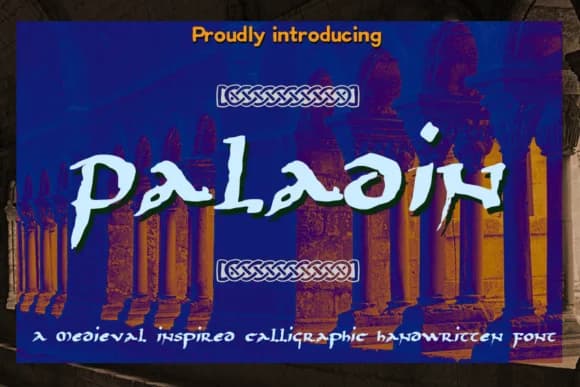
About Paladin Font
Paladin Font by Markus Schroppel is an elegant calligraphic script inspired by medieval manuscripts and the historic Arles countryside of southern France. This ornate typeface captures the refined character of European handwriting traditions, bringing authentic period styling to modern design work. Paladin excels at creating wedding invitation suites with timeless sophistication, designing fantasy book covers with narrative depth, crafting artisanal product labels that convey heritage and craftsmanship, and producing decorative certificate designs that demand visual distinction. The flowing letterforms evoke the discipline and beauty of historical penmanship.
Beyond its atmospheric aesthetic appeal, Paladin's consistent letterforms ensure solid readability across different applications while maintaining that carefully crafted, hand-rendered quality throughout. The script performs beautifully at larger sizes for headlines and focal points, making it particularly valuable for design projects where you want viewers to slow down and genuinely appreciate the typography. Vintage-inspired branding, premium packaging for small-batch goods, and manuscript-style collateral all benefit from Paladin's authentic character and visual presence. Whether you're building a comprehensive wedding brand identity or creating ephemera with historical roots, this font brings the refined discipline of medieval calligraphy to contemporary creative work with distinctive personality.
Paladin Font is a script font that shines as a display or heading face. Pair it with a clean sans-serif or serif font for body text — the contrast creates a clear hierarchy while the two styles stay balanced and easy to read.
Paladin Font